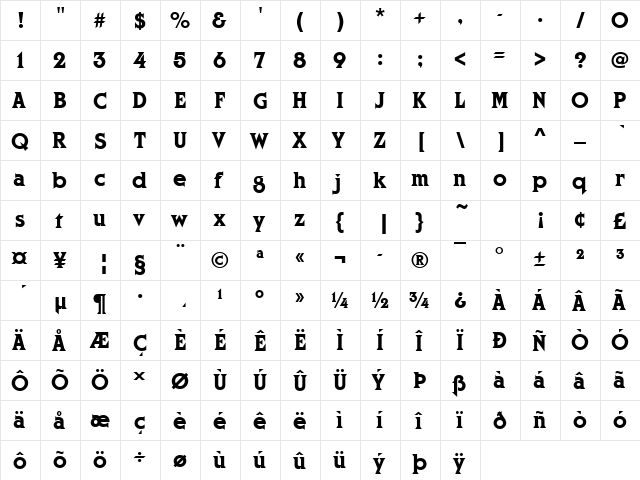
URWCopernicusD Regular
Design Context for URWCopernicusD Typeface
URWCopernicusD takes a measured approach to typography — its balanced proportions and neutral character make it a reliable workhorse for both digital and print work.